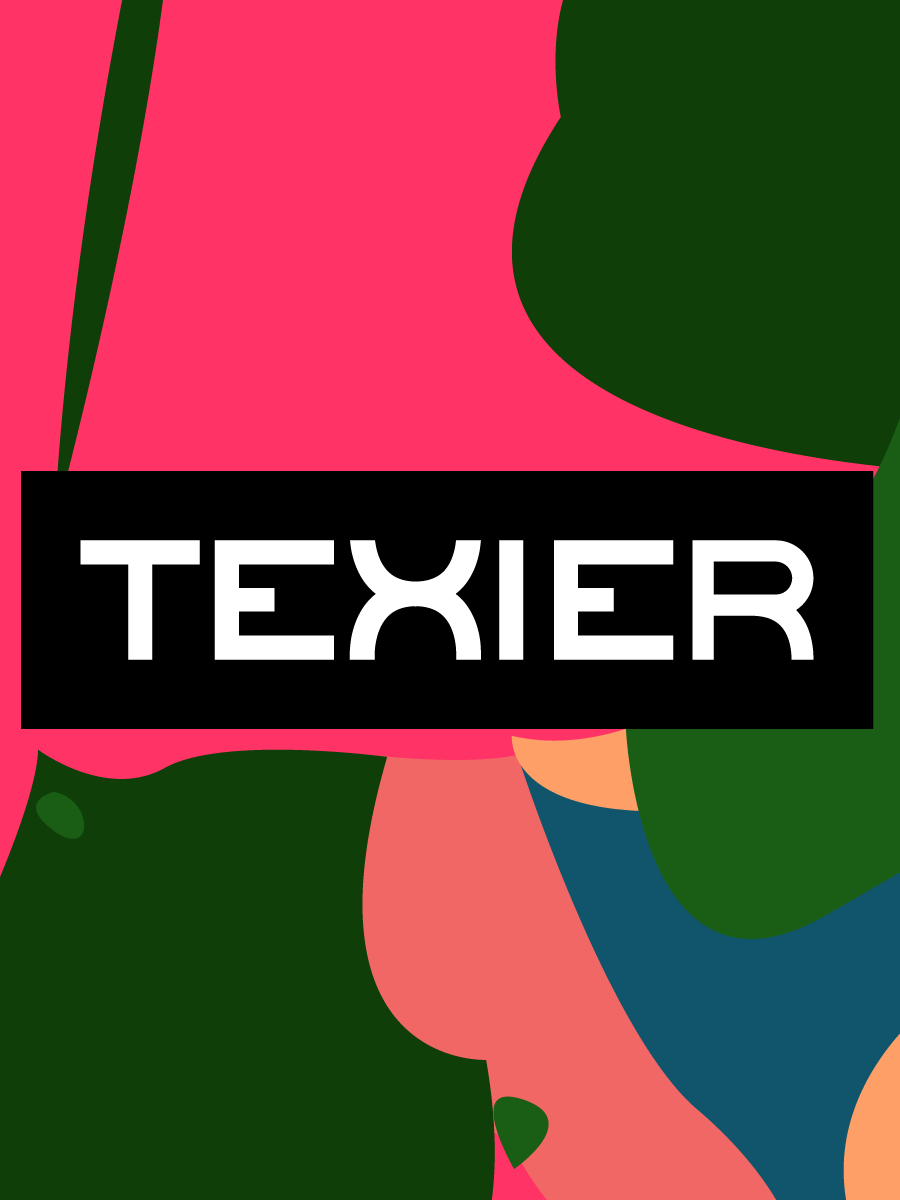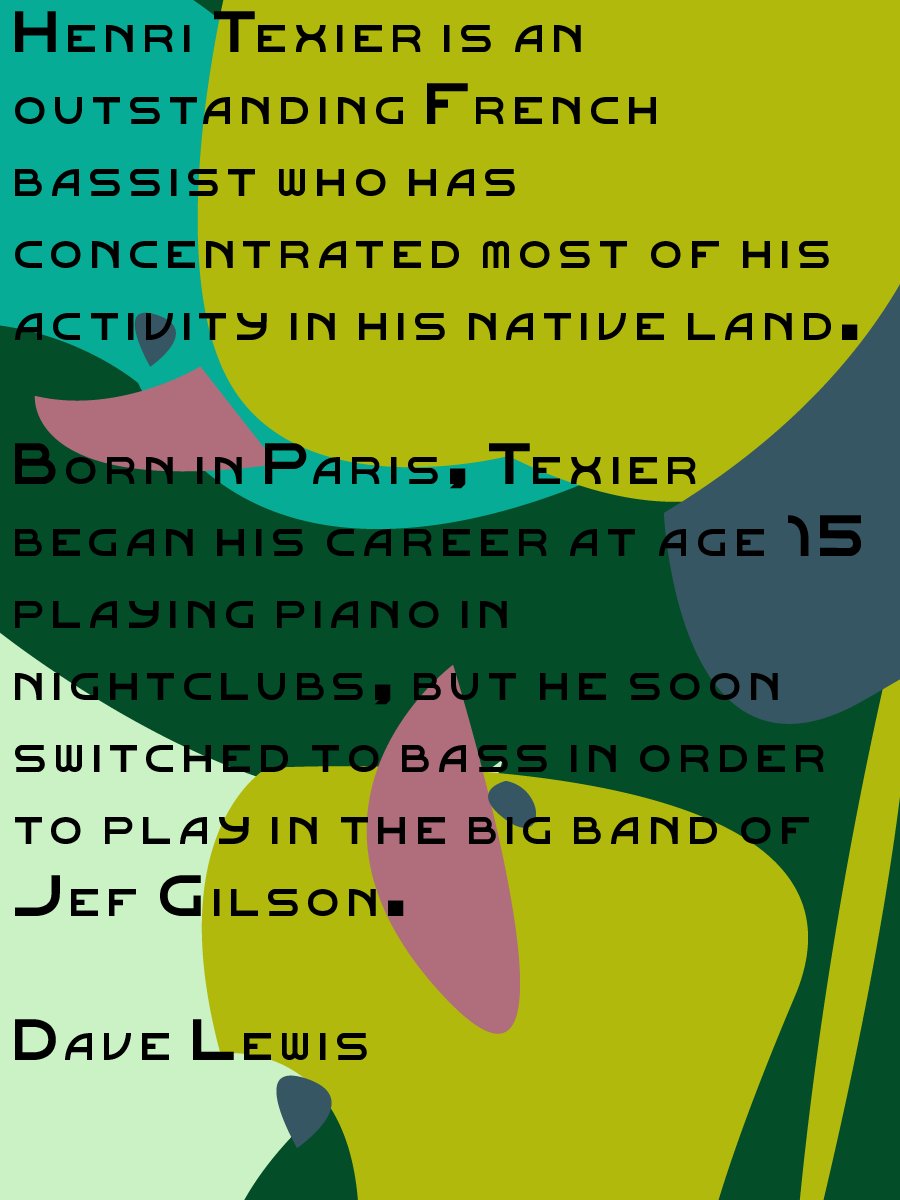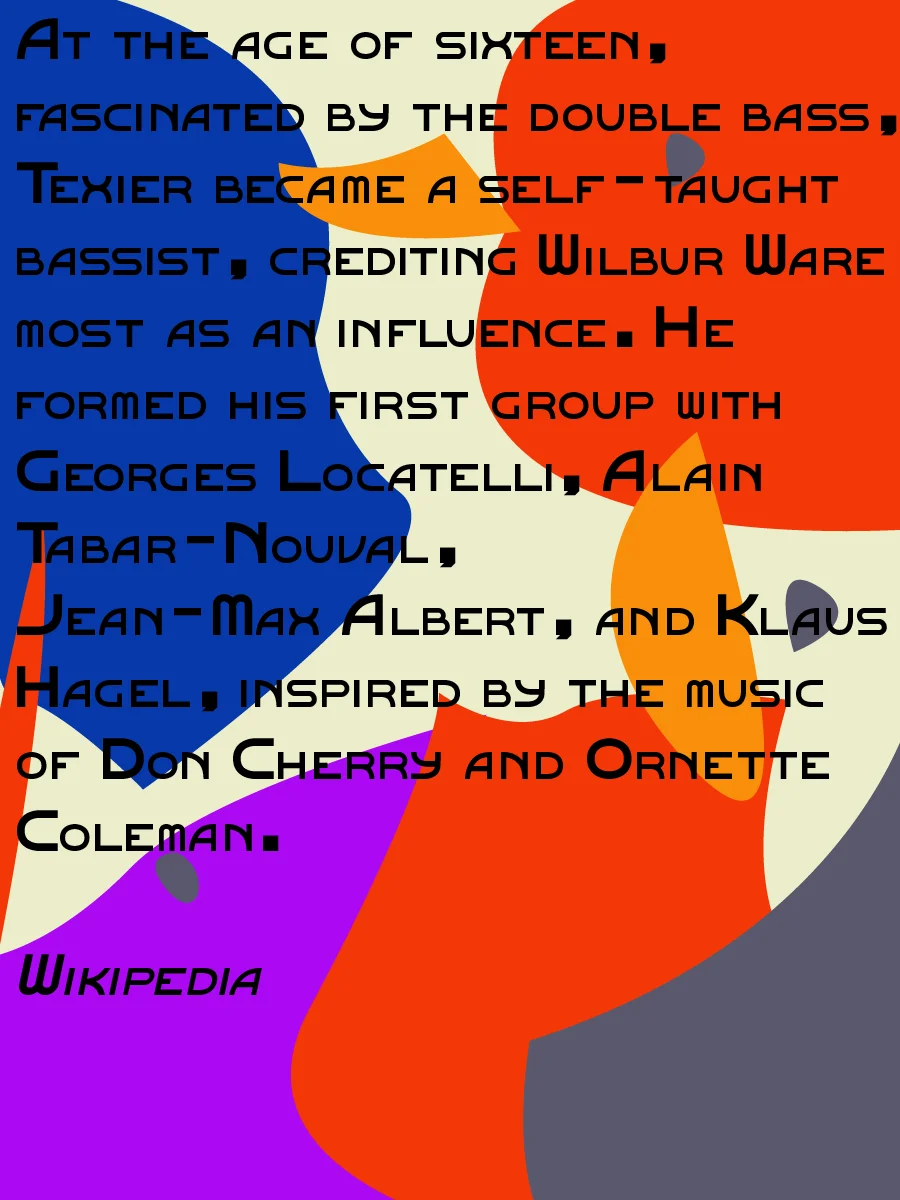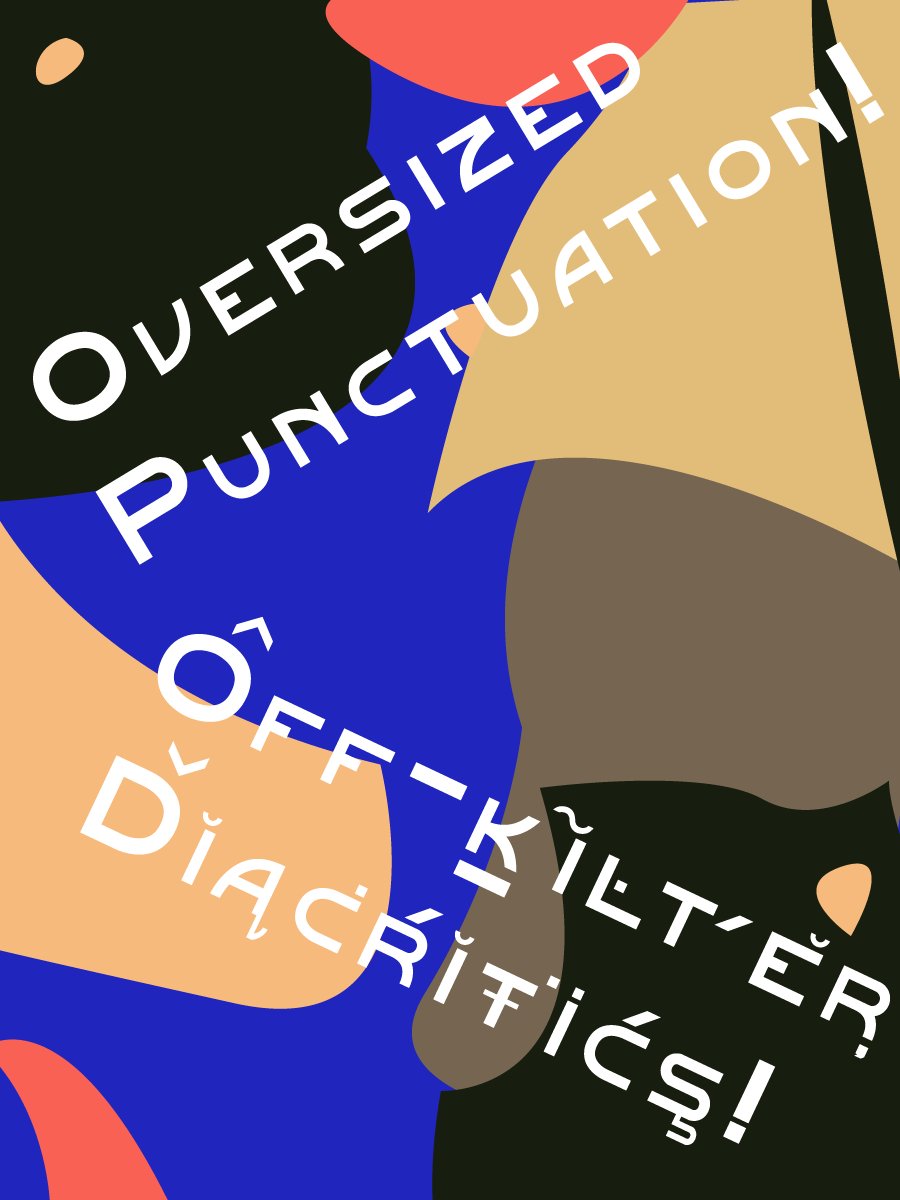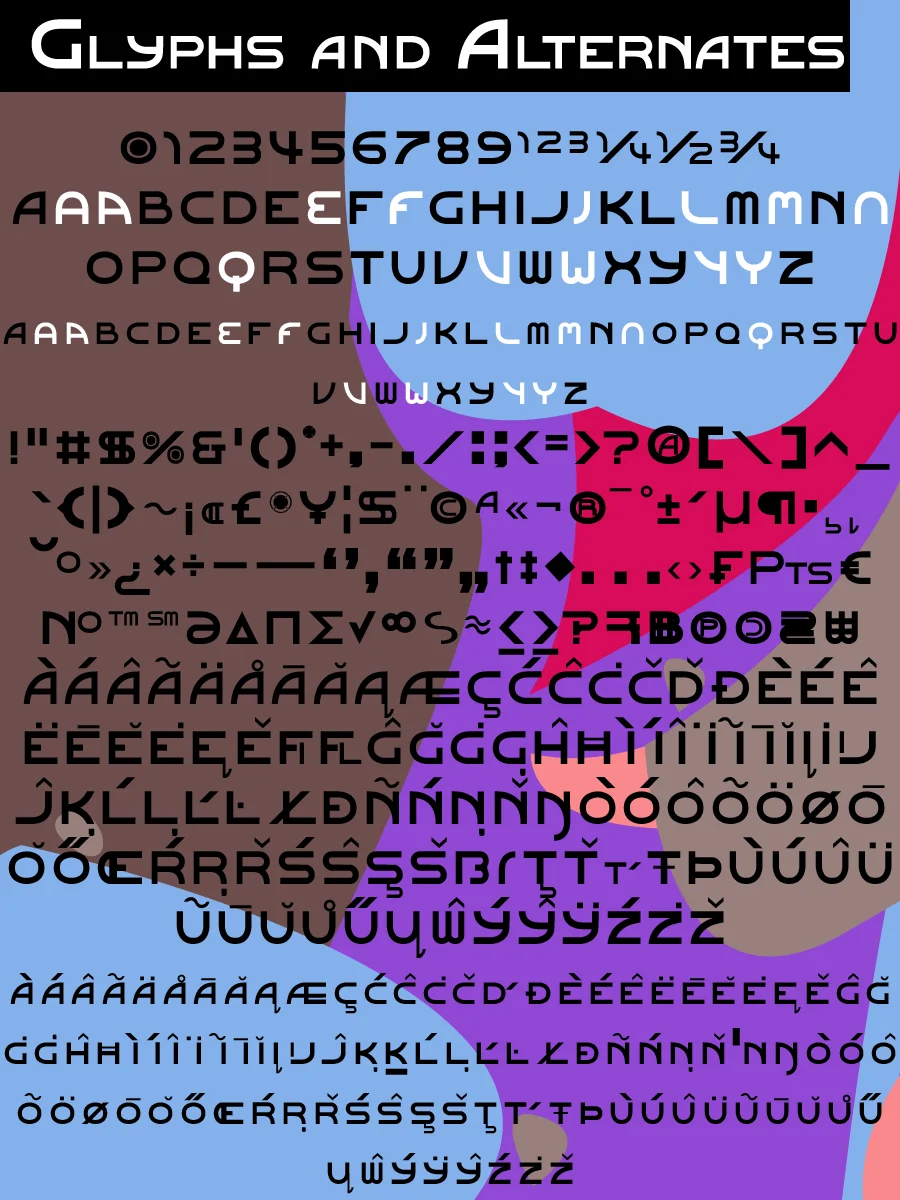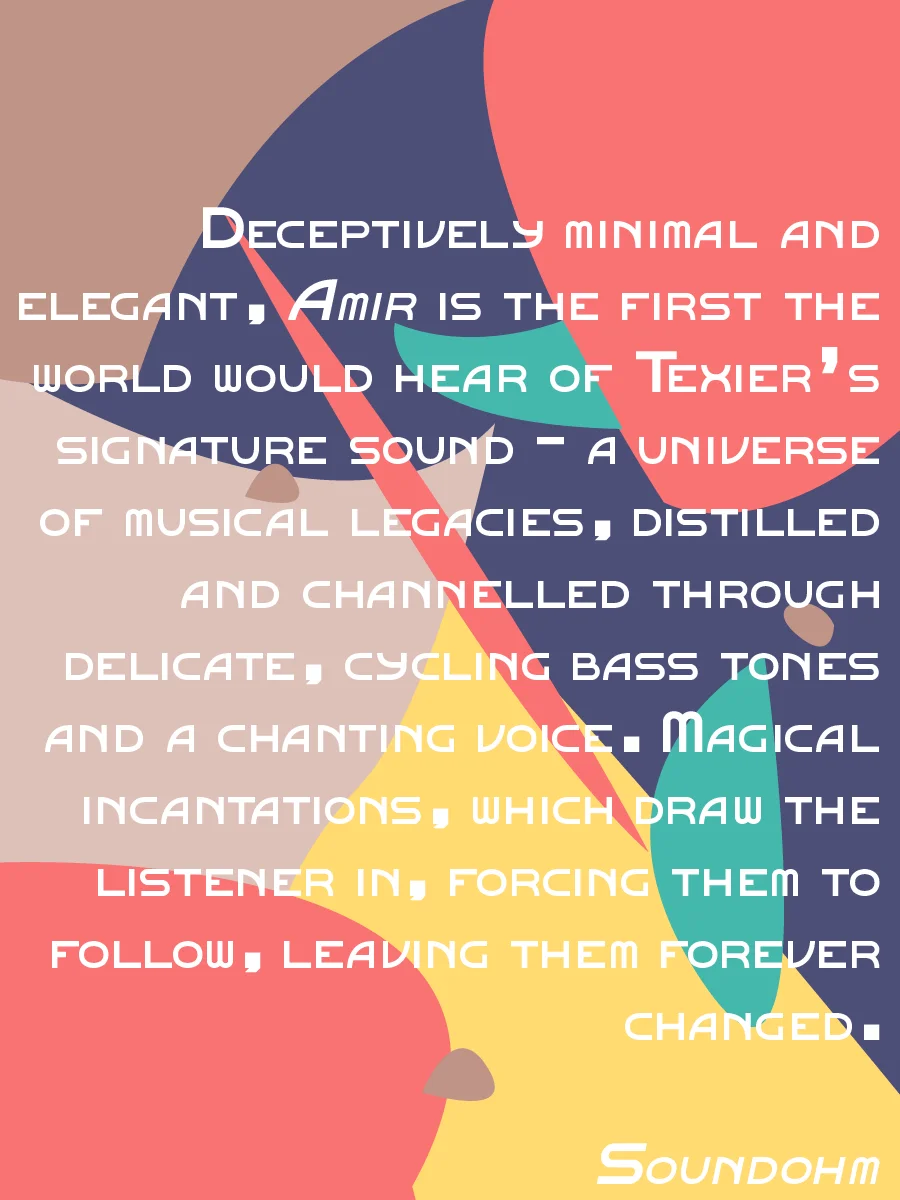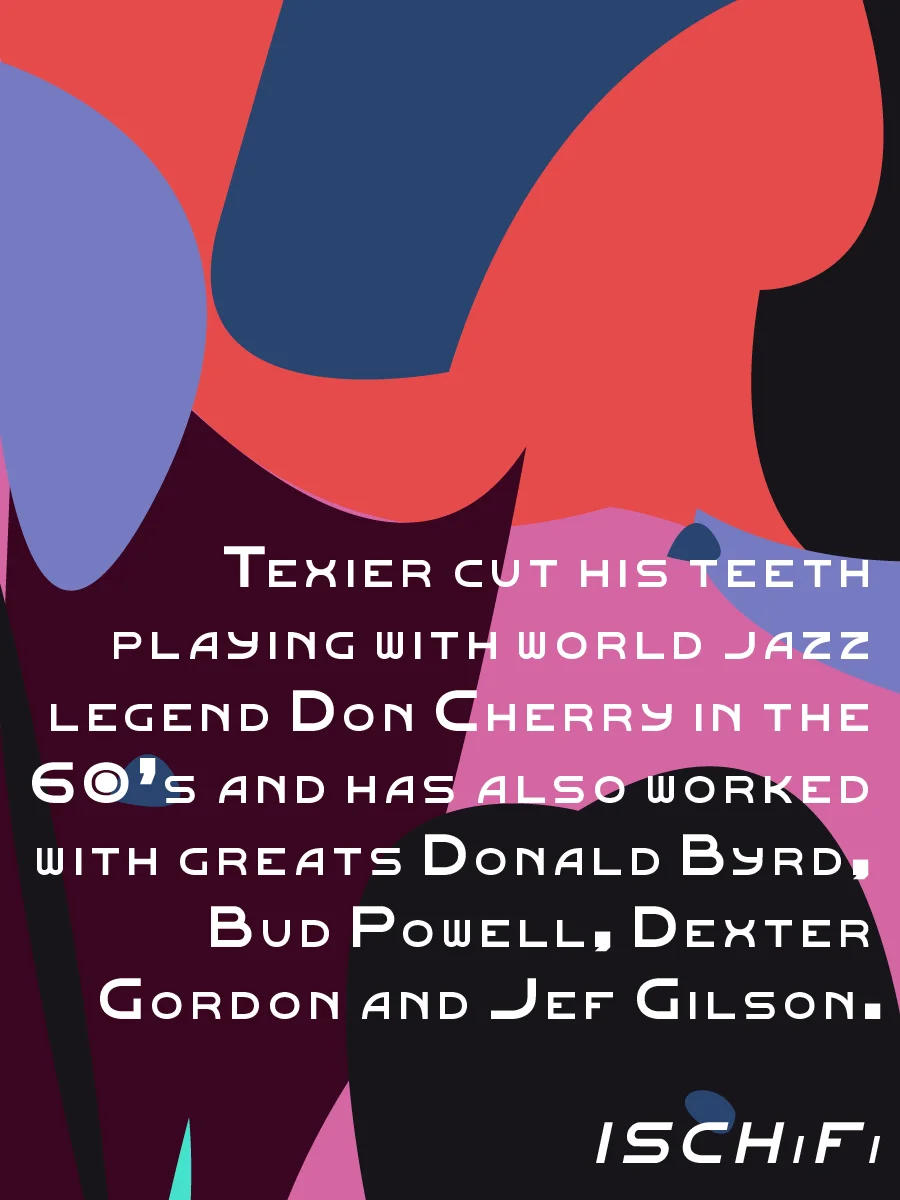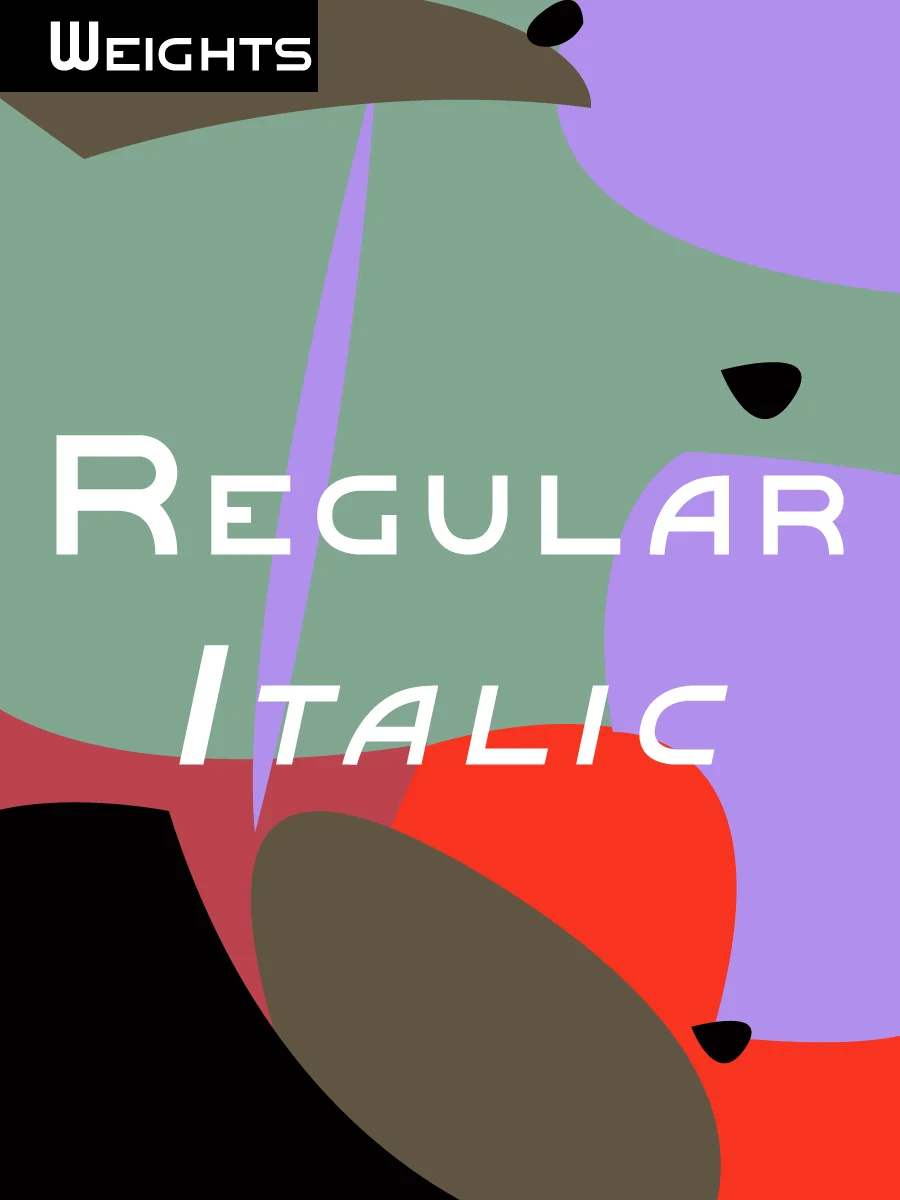
Texier font - Regular weight
Named after legendary French jazz musician Henri Texier, Texier was created while listening to a lot of jazz and electronica and has a vibin' kind of feel.
Packed with little quirky details like oversized punctuation and intentionally off-kilter diacritics, Texier is sure to please both bass enthusiasts and people who enjoy a good font. Texier is Les Là-Bas!